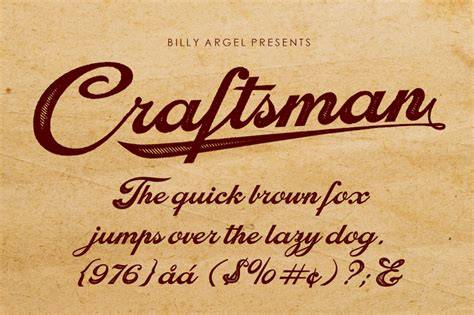
The Rise Of Craftsman Fonts In 2023
In the year 2023, the Craftsman font style has become increasingly popular. This type of font has been used for years, but in recent times more people have been embracing it for its unique design and aesthetic. It is the perfect combination of vintage and modern, both in its look and feel. Its simple yet sophisticated look has made it the perfect choice for any type of project or creative endeavor.
What Makes Craftsman Fonts So Appealing?
Craftsman fonts are known for their unique and distinctive style. They often feature geometric shapes and patterns, as well as a certain level of detail that is difficult to achieve with other font styles. Craftsman fonts are also often characterized by a certain level of readability, as they are designed to be easily legible.
The popularity of Craftsman fonts is growing in 2023 because of the fact that they offer a level of simplicity, elegance, and sophistication that can be difficult to achieve with other font types. This makes them perfect for any kind of project, whether it be for a website, logo, flyer, or other type of graphic design.
How to Choose the Right Craftsman Font
When choosing a Craftsman font, there are a few things to keep in mind. First, you should consider the type of project you are working on. Different fonts may be better suited for different types of projects, so it is important to think about the overall look and feel you are trying to achieve. Additionally, you should consider the size of the font that you are looking for. Craftsman fonts tend to come in a variety of sizes, so it is important to make sure you are choosing the right one for your project.
In 2023, Craftsman fonts are becoming increasingly popular due to their unique design and style. They offer a level of sophistication and elegance that is difficult to achieve with other font styles, and they can be used for any kind of project. When choosing a Craftsman font, it is important to consider the type of project you are working on, the size of the font, and the overall cost of the font. With the right font, you can create something truly unique and special.